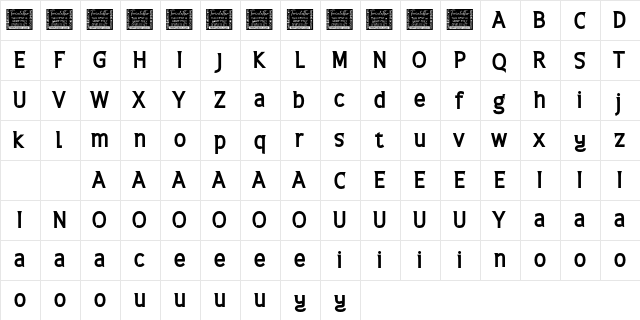
Design Context for Restrict Typeface
Restrict offers clean, dependable letterforms without strong stylistic allegiance, making it a practical choice for designers who need flexibility.
Pro Tip: Pair Restrict with a font of contrasting weight or personality to build a more expressive typographic hierarchy.